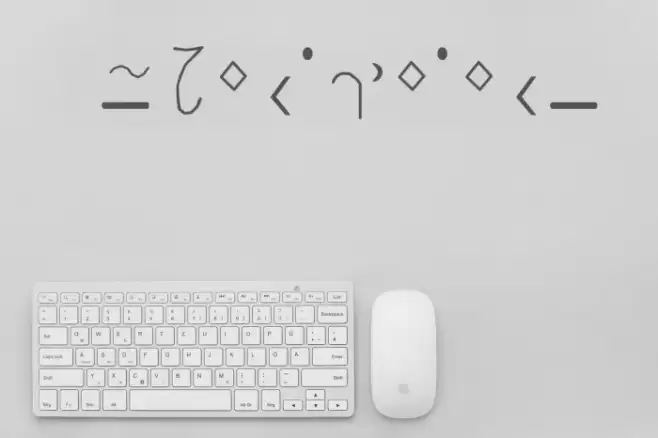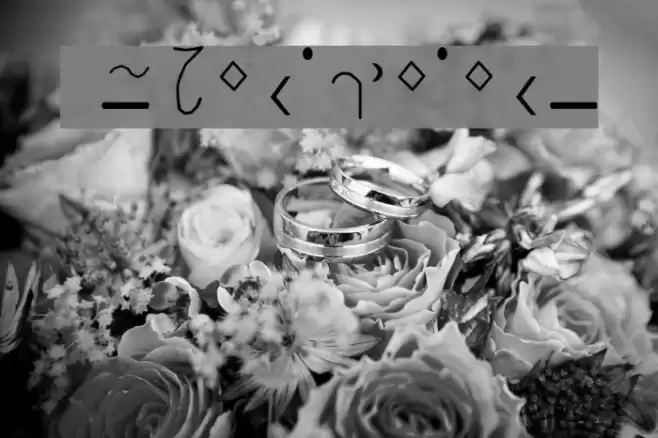
Partskinesiska Font
Partskinesiska Description
This font features a highly abstract and decorative style, with characters that resemble a fusion of geometric shapes and artistic flourishes. The letters are not immediately recognizable as traditional Latin script, suggesting a design that prioritizes visual creativity over readability. The strokes vary in thickness, adding a dynamic and playful feel to the font. The special characters, such as triangles and stars, further enhance its decorative nature, making it suitable for artistic and avant-garde projects.
An abstract, decorative font with geometric and artistic elements from Uncategorized fonts.
- Proposed Projects: Ideal for artistic projects, abstract designs, modern art pieces, and creative branding.
- Character Spacing: Wide
- Contrast:
- Use Case: Logos, Artistic projects, Creative branding